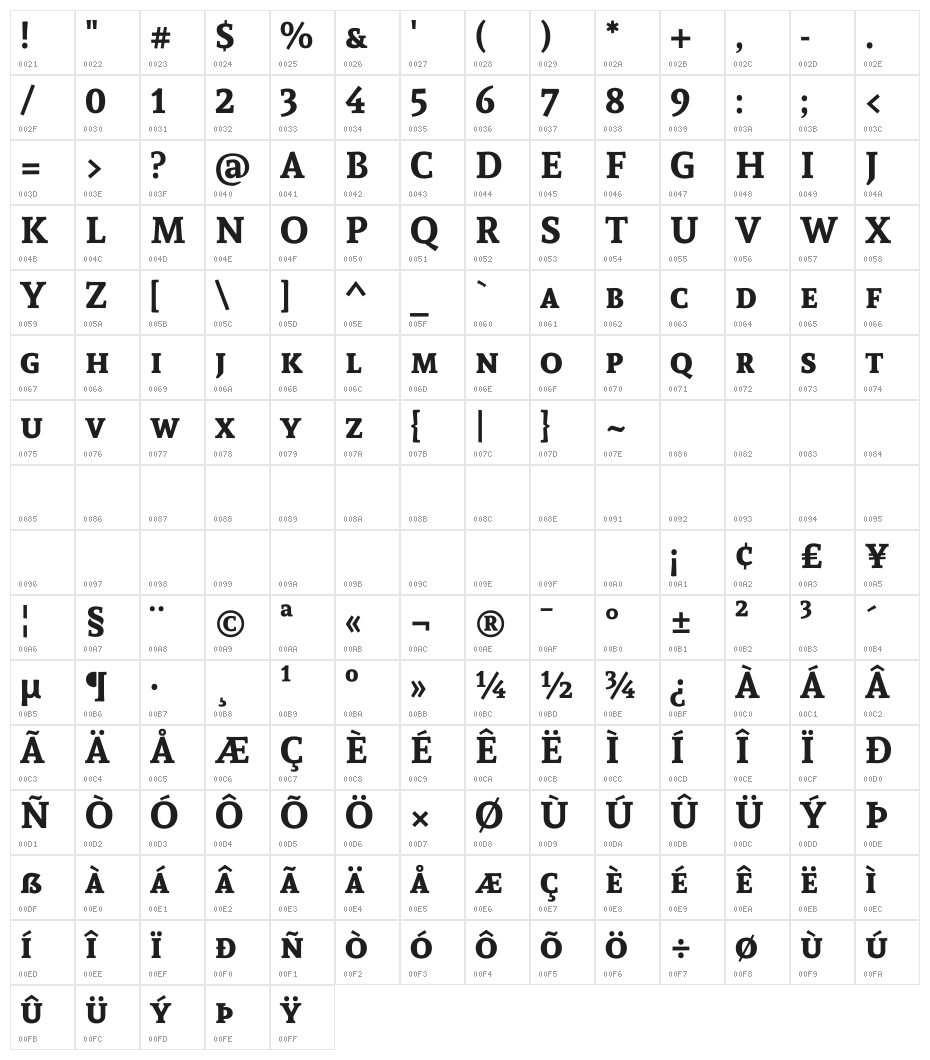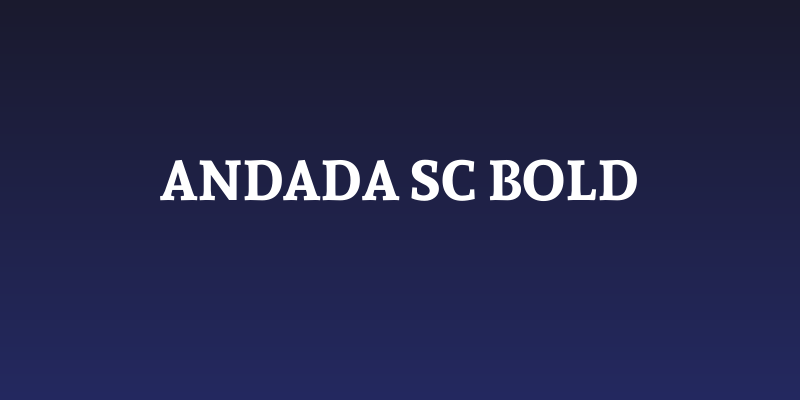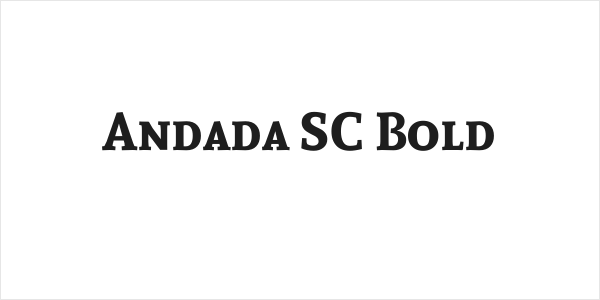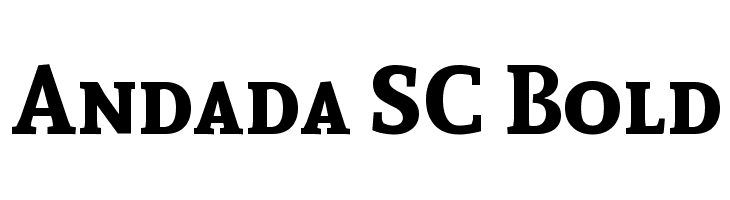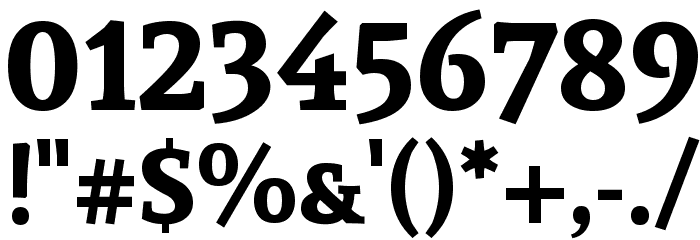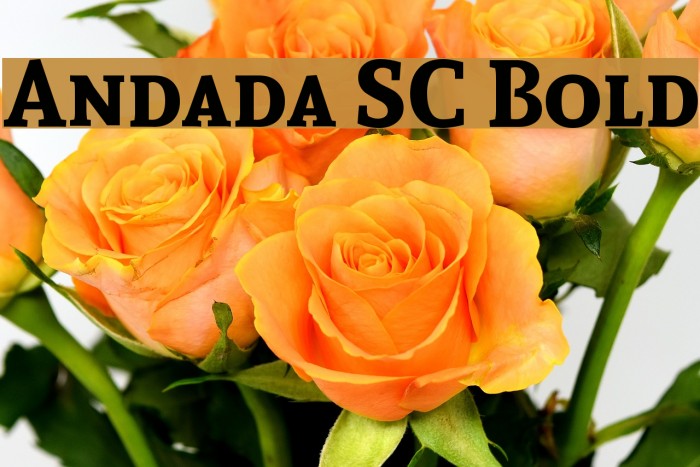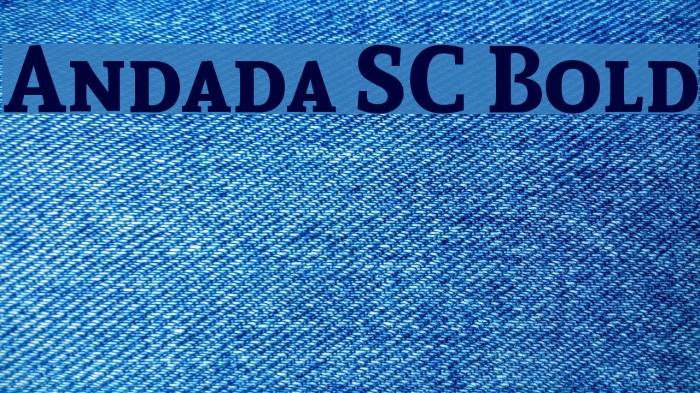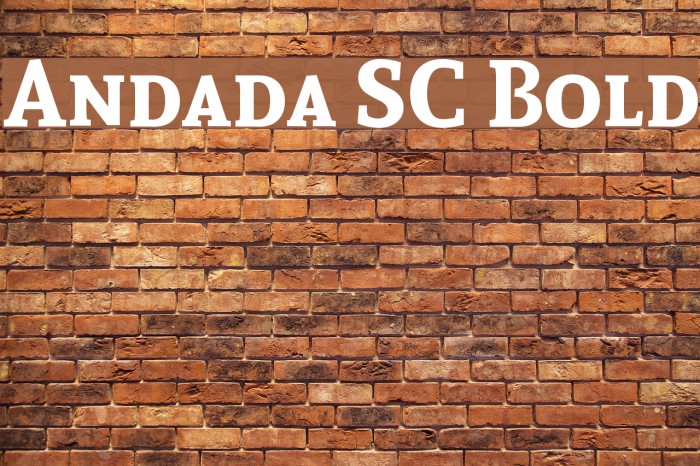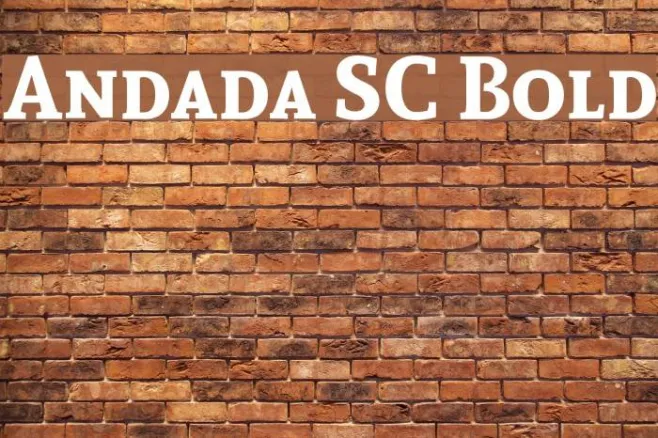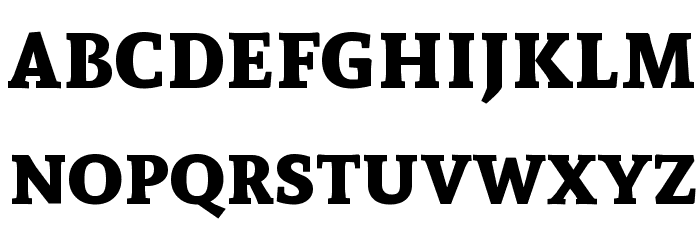
Andada SC Bold Font
Andada SC Bold Description
This font features a bold and robust design with strong serifs and a classic appearance. The characters are well-defined with a consistent stroke width, providing a sense of stability and reliability. The uppercase letters are prominent and commanding, while the lowercase letters maintain a harmonious balance. The numerals are clear and easy to read, making them suitable for various applications. The special characters are distinct and integrate seamlessly with the overall style, enhancing its versatility.
| Overall Style | Classic |
| Use Case | Headlines, Body text, Logos |
| Proposed Projects | Ideal for editorial design, book covers, branding, and formal invitations. |